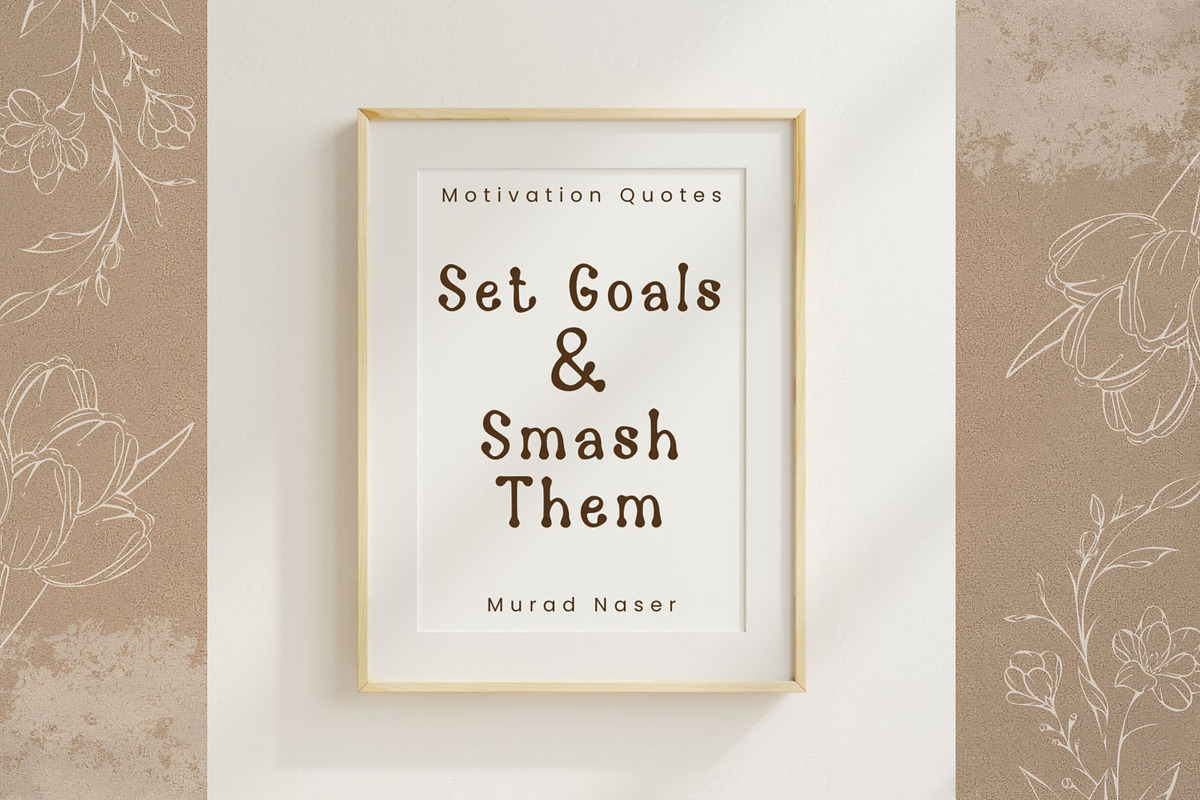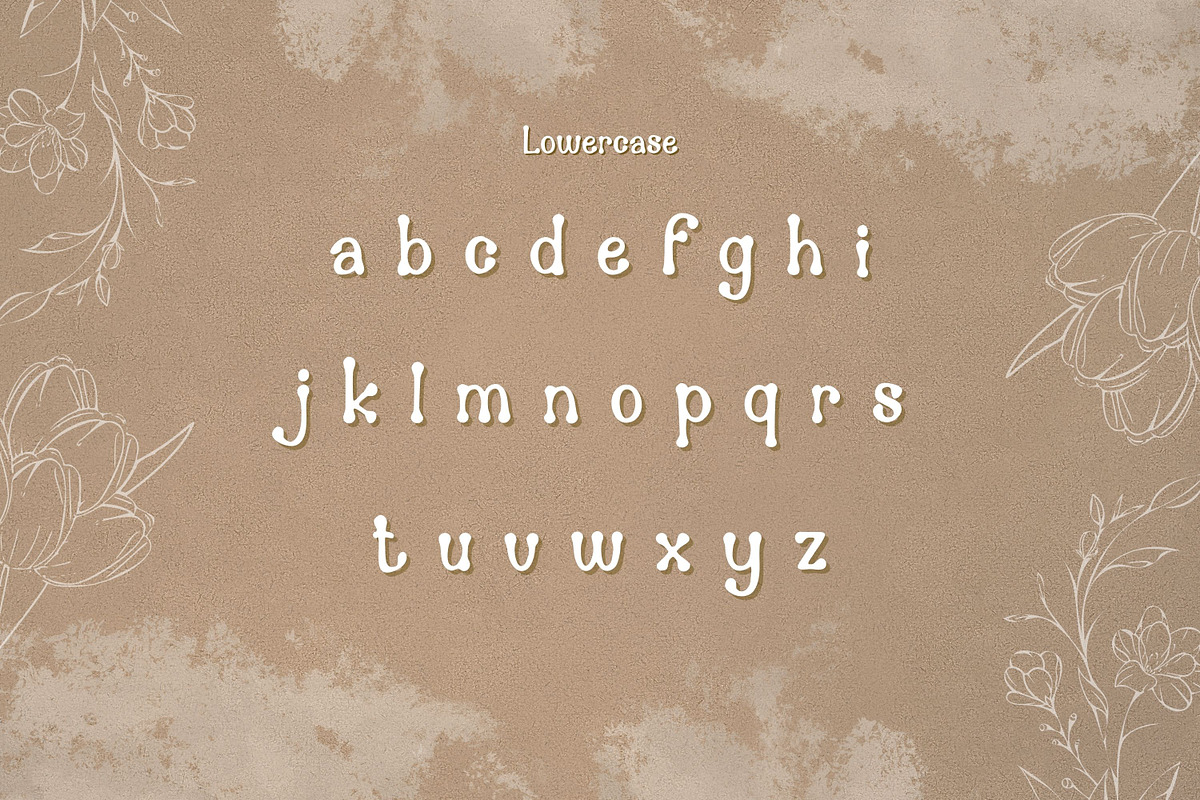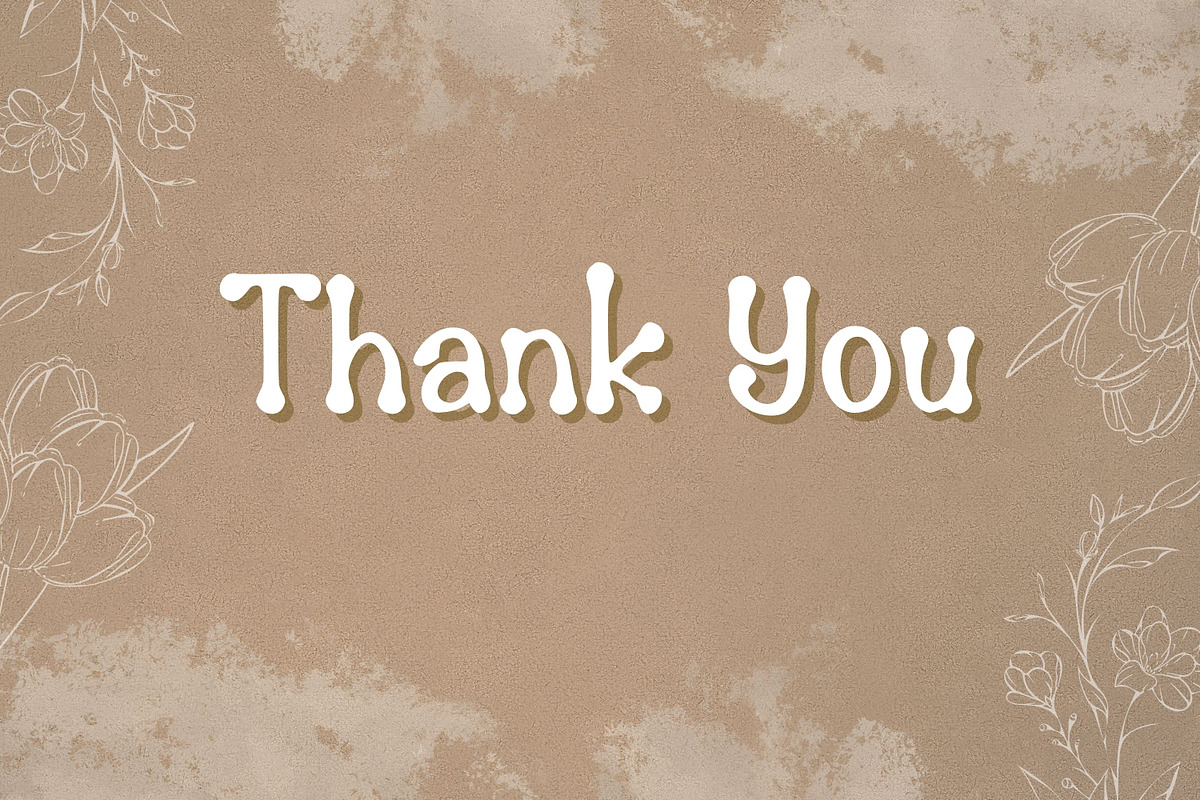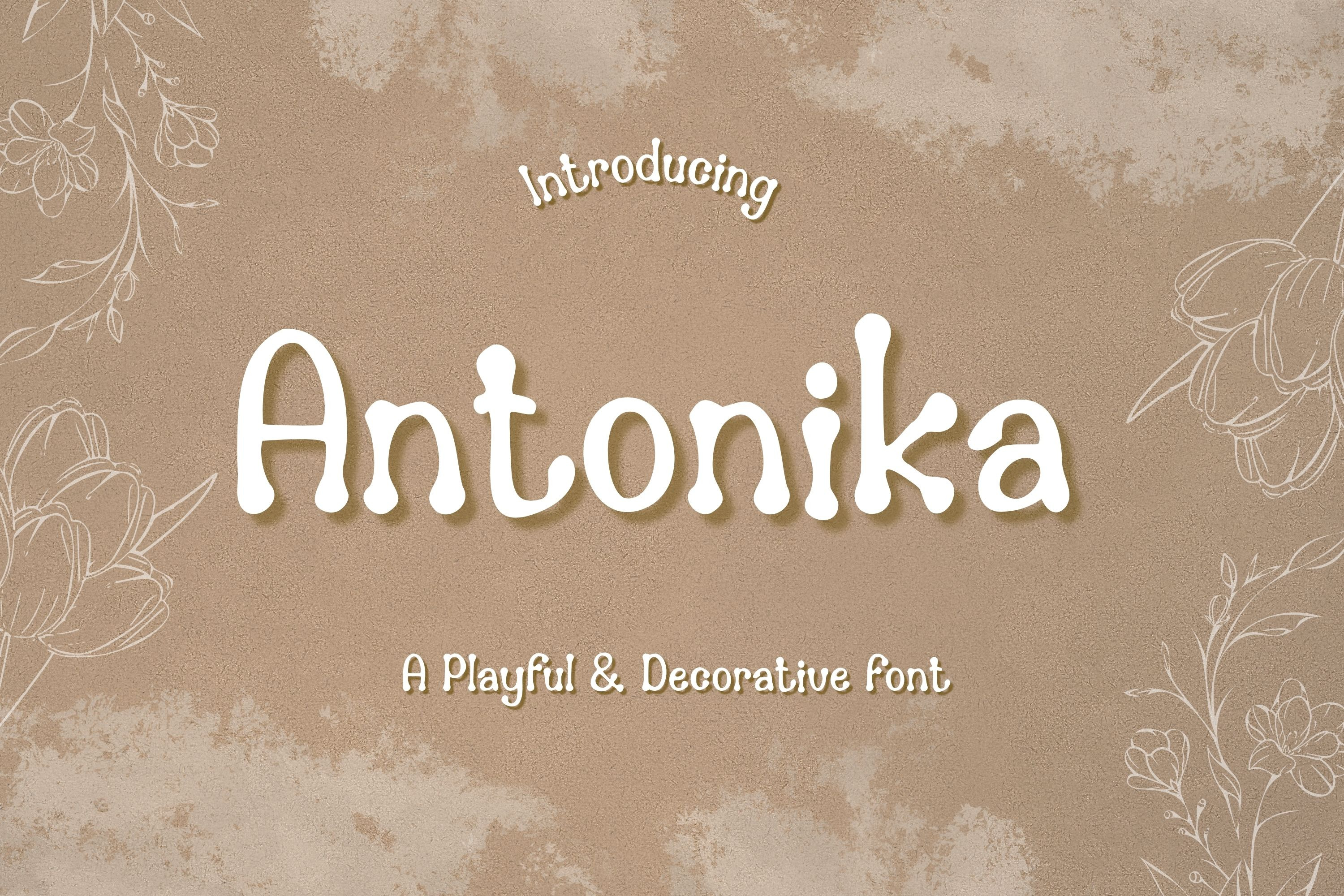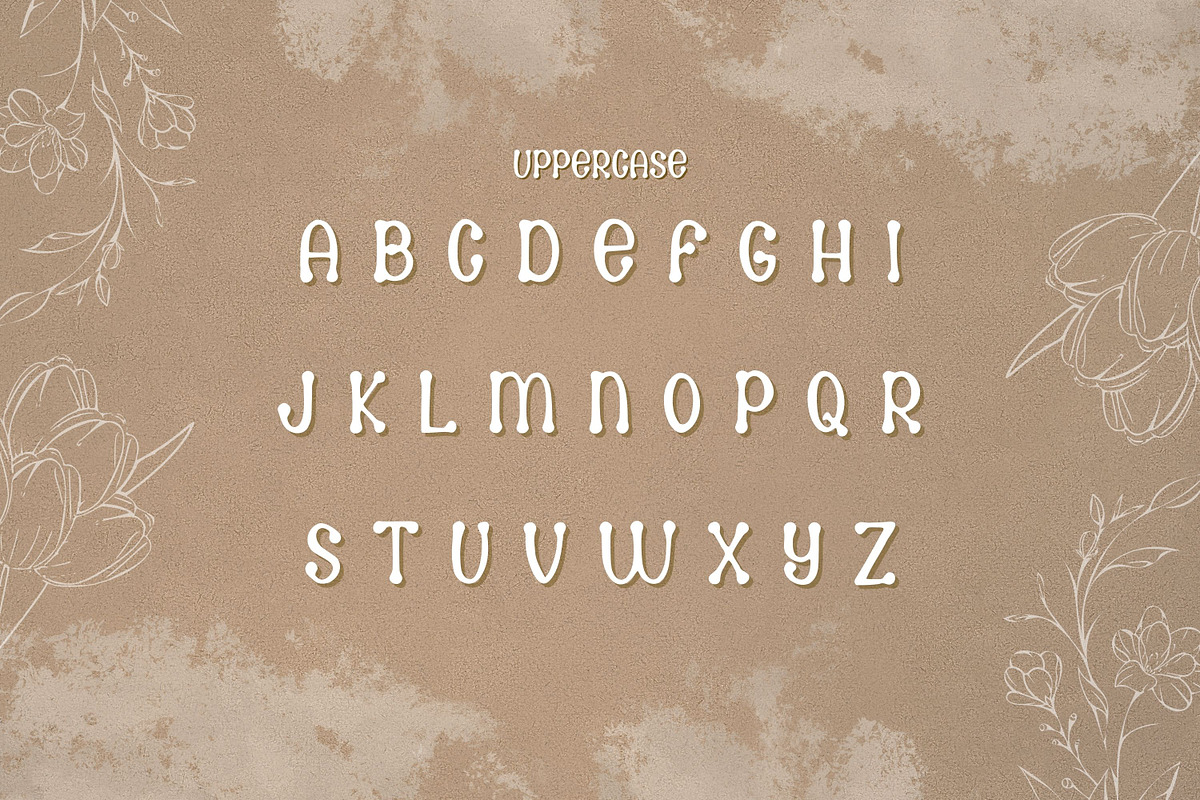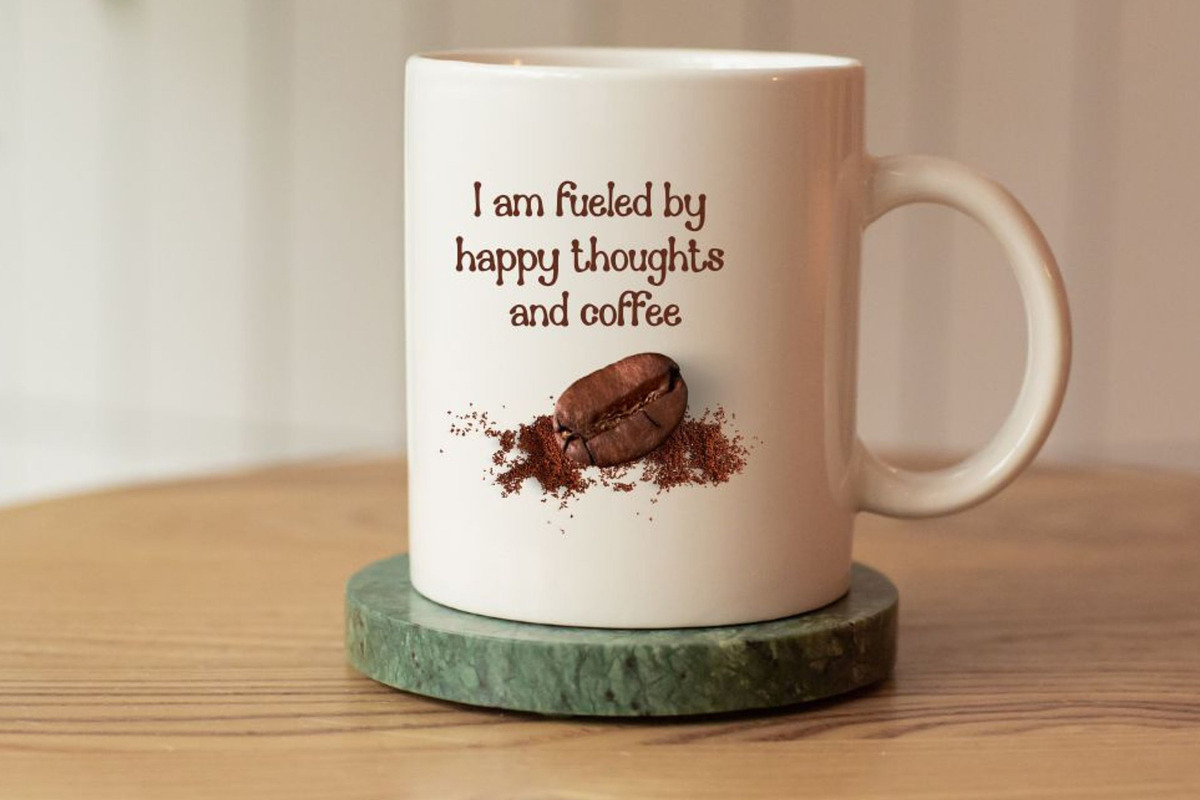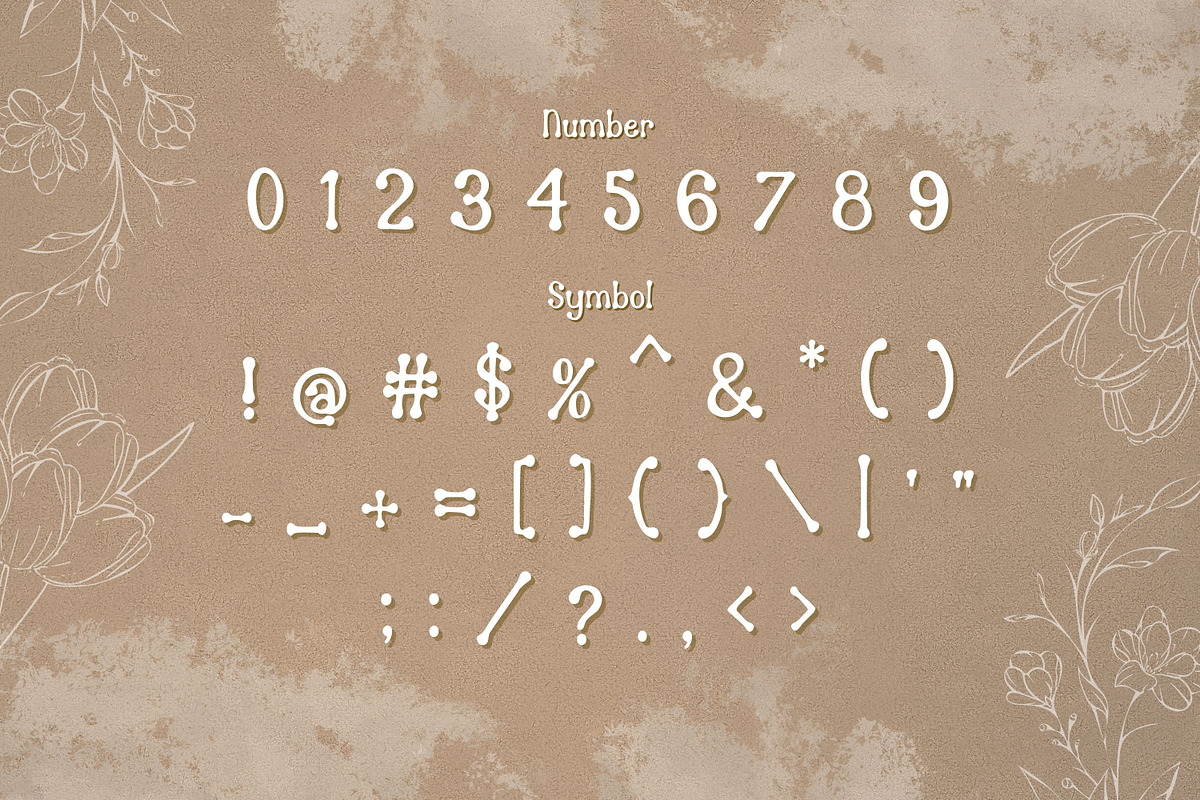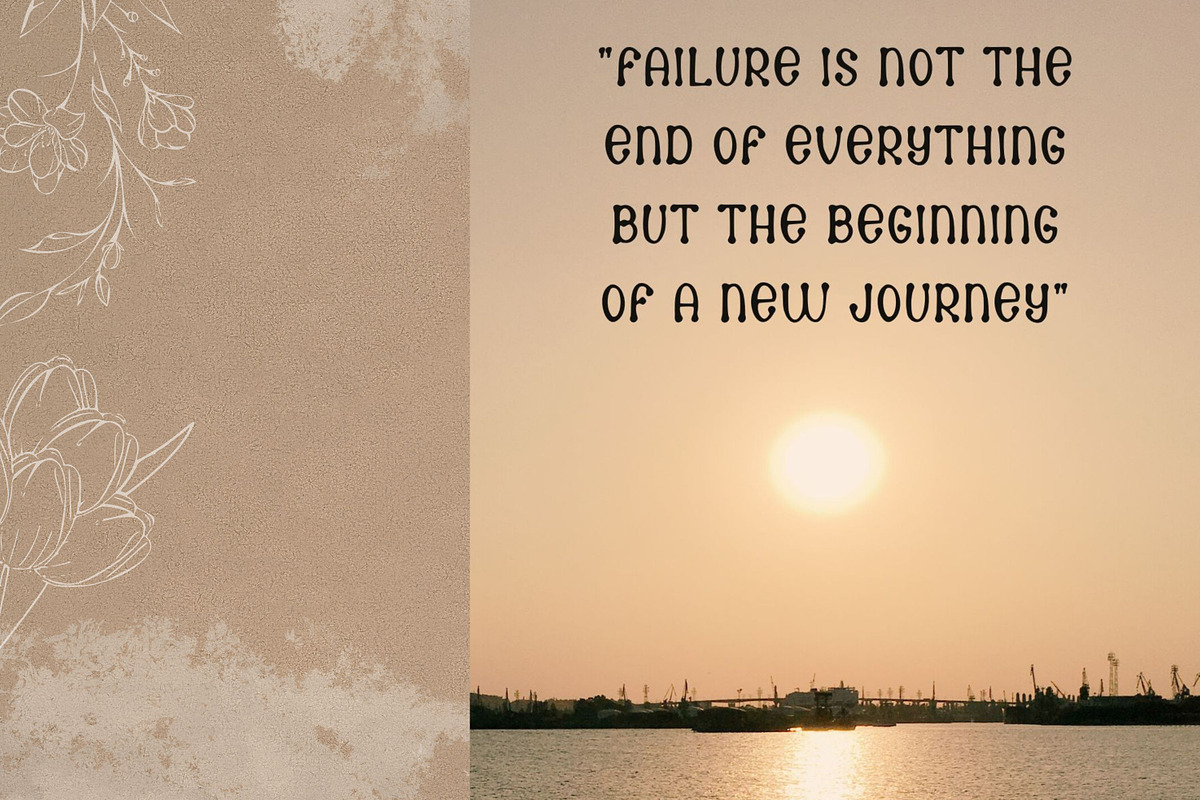
Antonika Font
is a playful and modern decorative font designed to bring personality to your creative projects. It supports all standard English characters and basic punctuation, making it ideal for both print and digital use.
Perfect for logos, packaging, quotes, and social media graphics, this font is compatible with design software like Photoshop, Canva, and Cricut. Its fresh charm adds a unique touch to any design, from DIY crafts to professional branding.